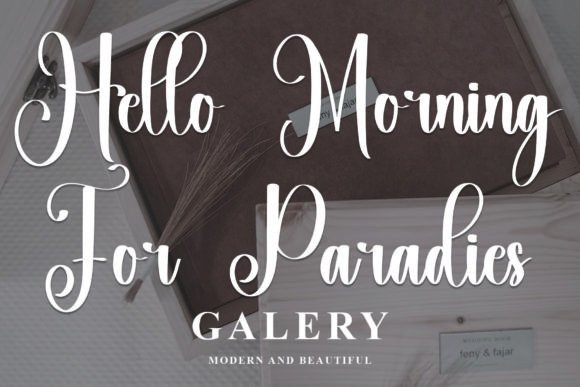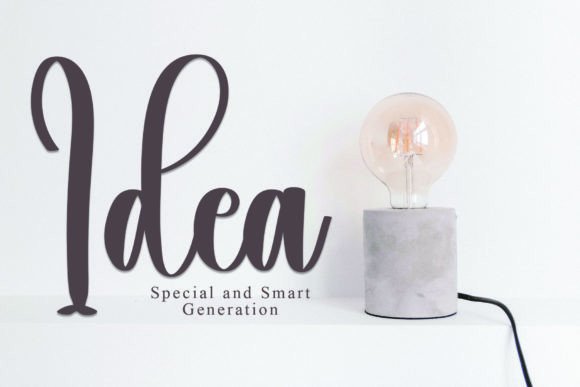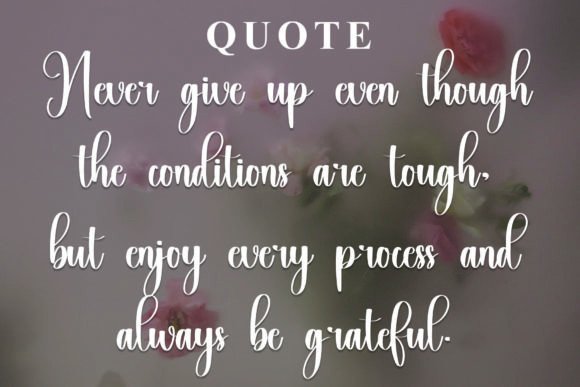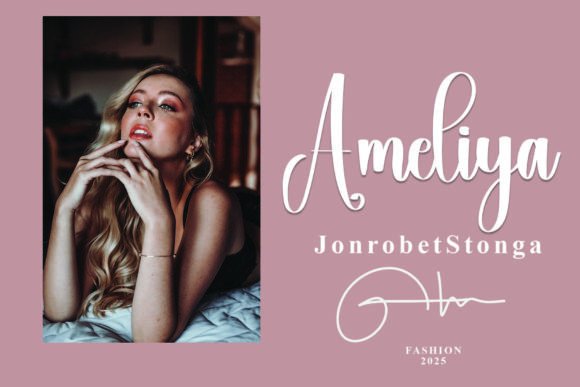
Introducing Bluray Font: The Enchanting Handwritten Typeface
Are you looking for a font that can add a touch of romance and elegance to your designs? Look no further than Bluray Font, a beautiful handwritten typeface that is sure to captivate your audience. With its versatile and enchanting style, Bluray Font is perfect for a wide range of applications, from greeting cards to headlines, and is guaranteed to make your next project stand out.
What is Bluray Font?
Bluray Font is a carefully crafted handwritten font that boasts a unique and charming style. Its elegant and flowing lines make it perfect for designs that require a touch of sophistication and romance. The font’s versatility makes it suitable for a wide range of applications, including:
- Greeting cards: Create beautiful and heartfelt greeting cards for special occasions like weddings, anniversaries, and birthdays.
- Headlines: Add a touch of elegance to your headlines and make them stand out with Bluray Font.
- Logos: Create stunning logos for your business or brand with this enchanting font.
- Invitations: Design beautiful and eye-catching invitations for weddings, parties, and other events.
Key Features of Bluray Font
Bluray Font has several key features that make it a must-have for designers and crafters:
- Handwritten style: The font’s handwritten style gives it a personal and unique touch.
- Elegant lines: The font’s flowing lines make it perfect for designs that require a touch of sophistication.
- Versatility: Bluray Font can be used for a wide range of applications, from greeting cards to headlines.
- Romantic feel: The font’s enchanting style is guaranteed to add a romantic feel to your designs.
Benefits of Using Bluray Font
Using Bluray Font in your designs can have several benefits:
- Unique designs: With Bluray Font, you can create unique and eye-catching designs that stand out from the crowd.
- Emotional connection: The font’s romantic and elegant style can help create an emotional connection with your audience.
- Professional look: Bluray Font can add a professional touch to your designs, making them look more polished and refined.
Tips and Tricks for Using Bluray Font
Here are some tips and tricks for getting the most out of Bluray Font:
- Experiment with different sizes: Try using Bluray Font in different sizes to create visual interest and hierarchy.
- Combine with other fonts: Combine Bluray Font with other fonts to create a unique and eye-catching design.
- Use in digital and print designs: Bluray Font can be used in both digital and print designs, making it a versatile addition to your font library.
Bluray Font is a beautiful and enchanting handwritten typeface that is sure to add a touch of romance and elegance to your designs. With its versatility and unique style, it’s perfect for a wide range of applications, from greeting cards to headlines. Whether you’re a designer or crafter, Bluray Font is a must-have font that can help you create stunning and eye-catching designs.